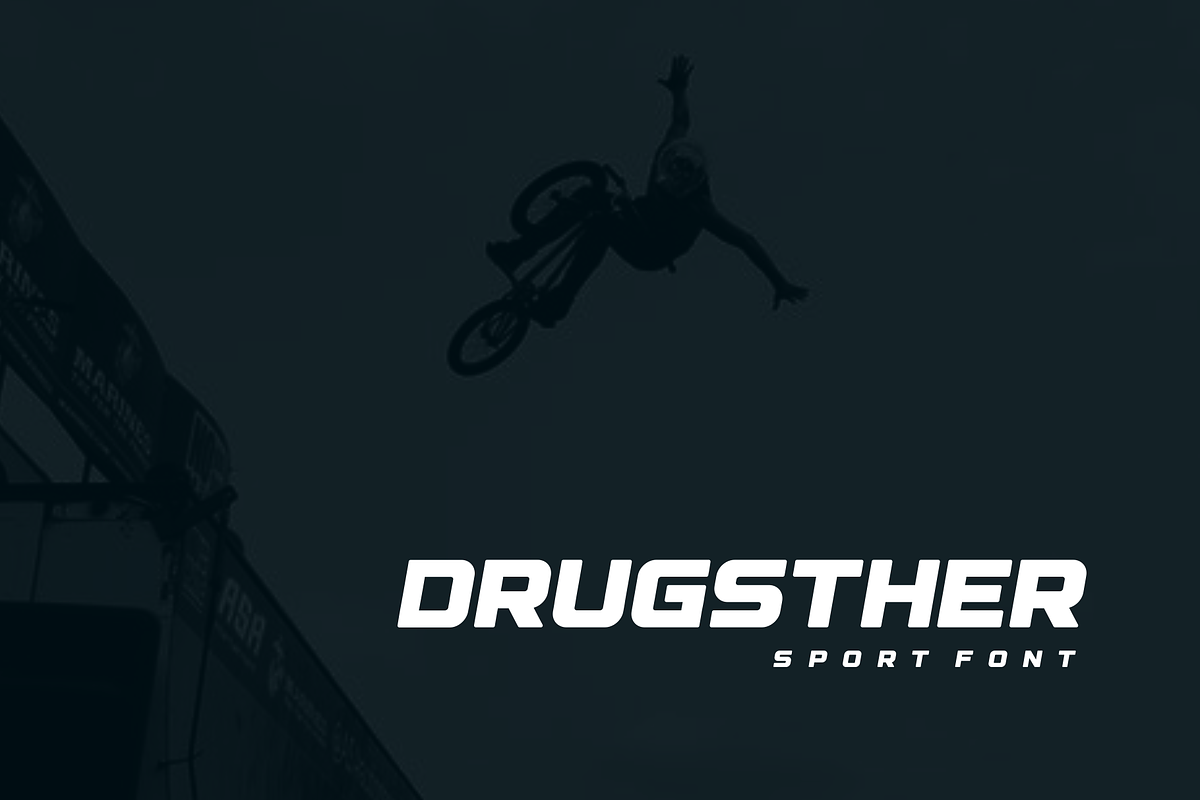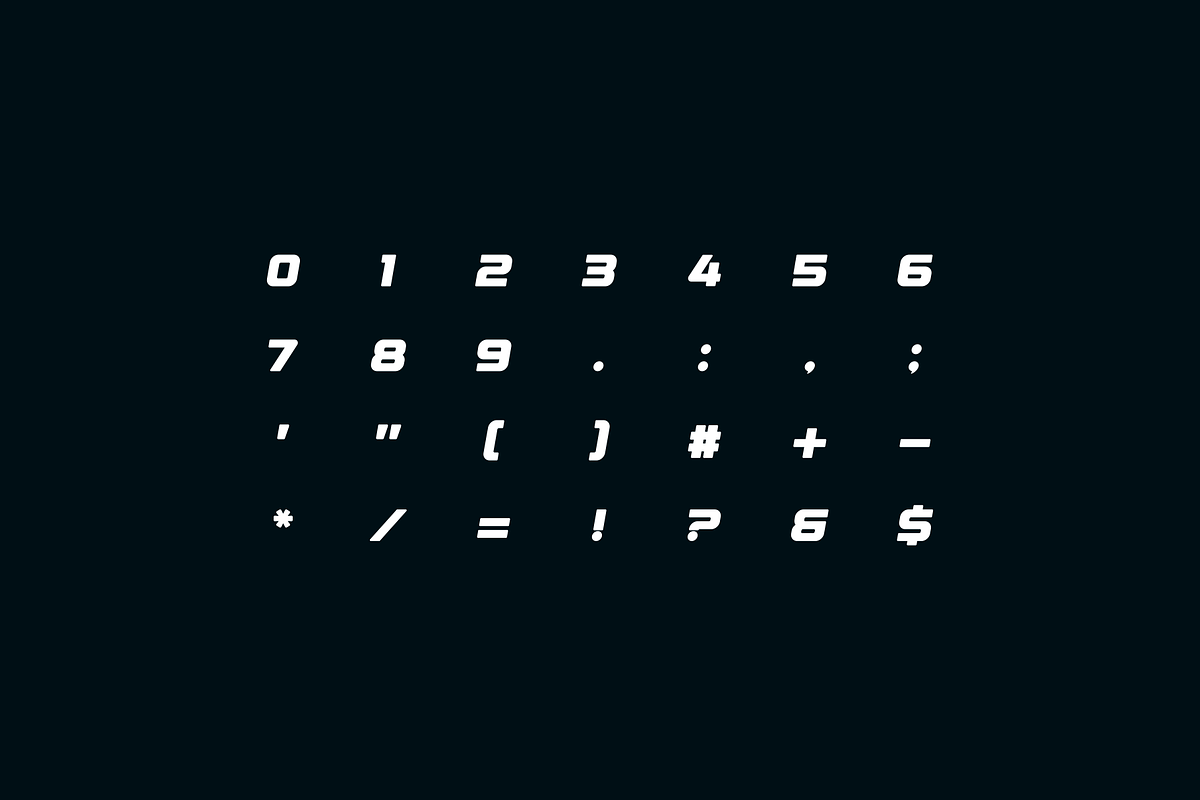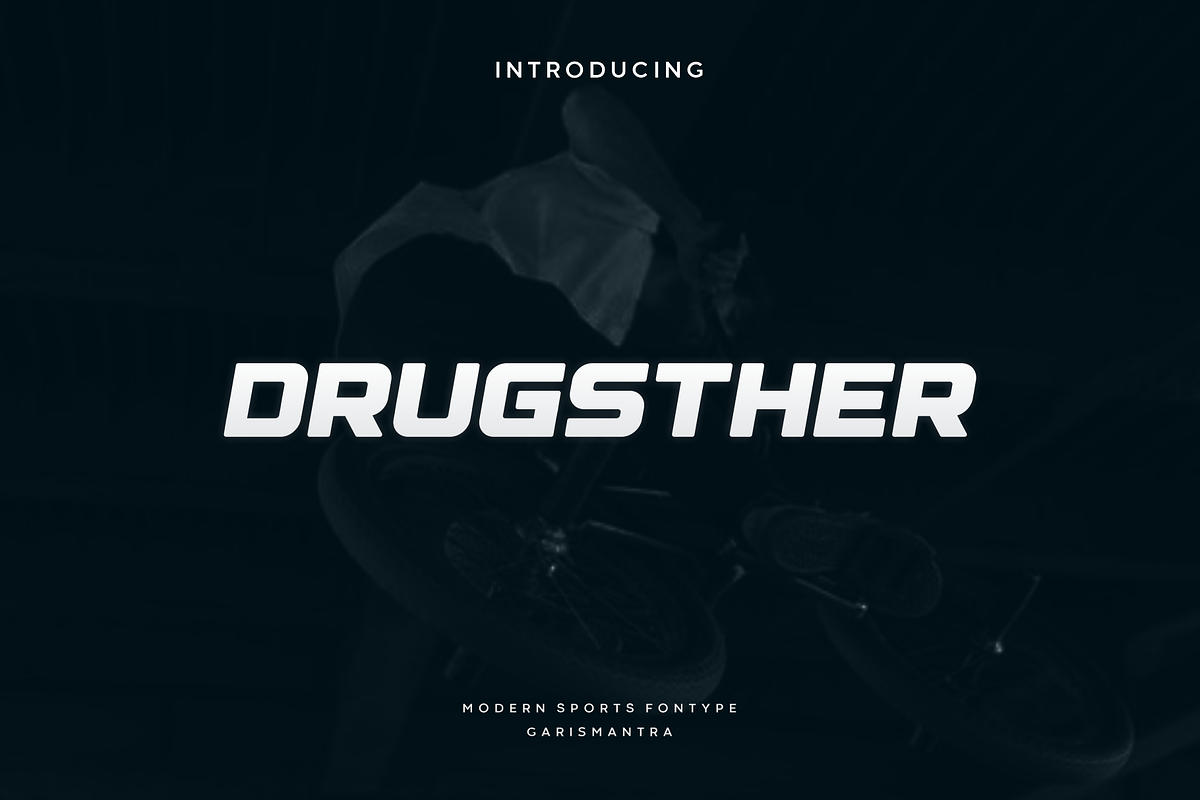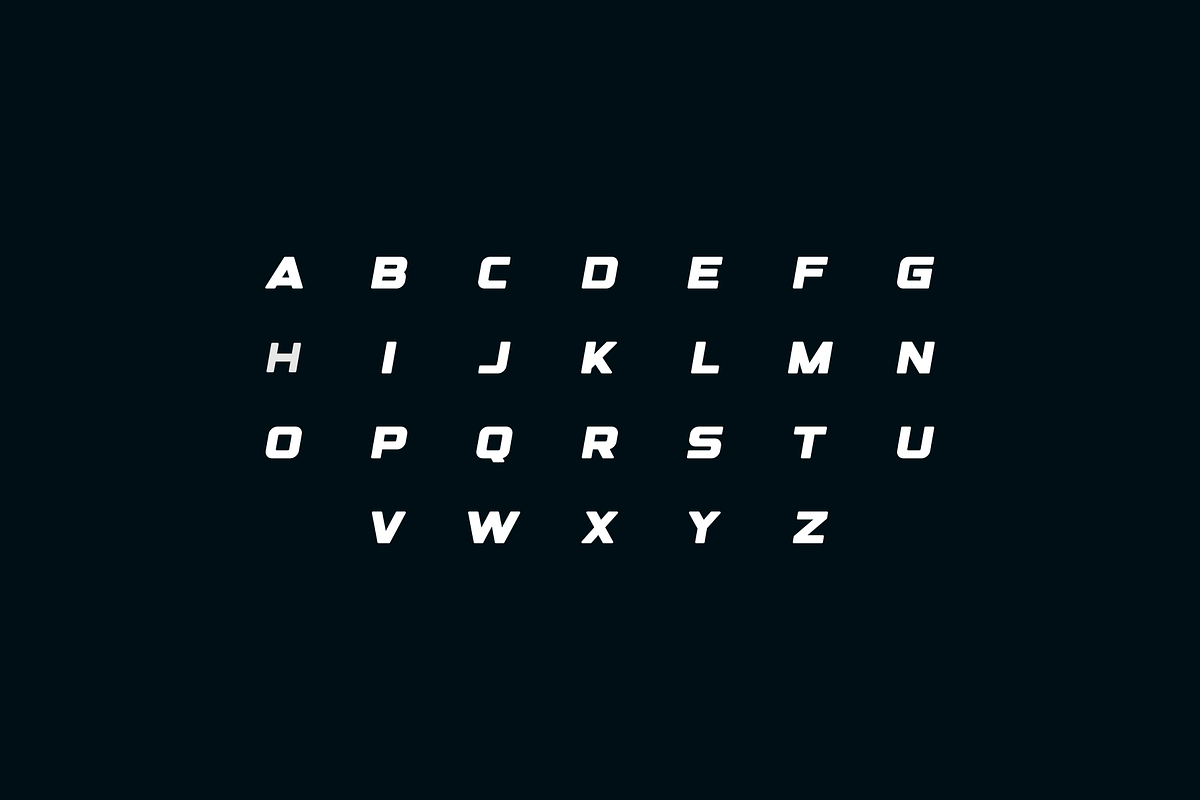
Drugsther
Drugsther is a simple and sharp looking display font, that will truly inspire your works. Use this font for your designs and explore its endless possibilities.